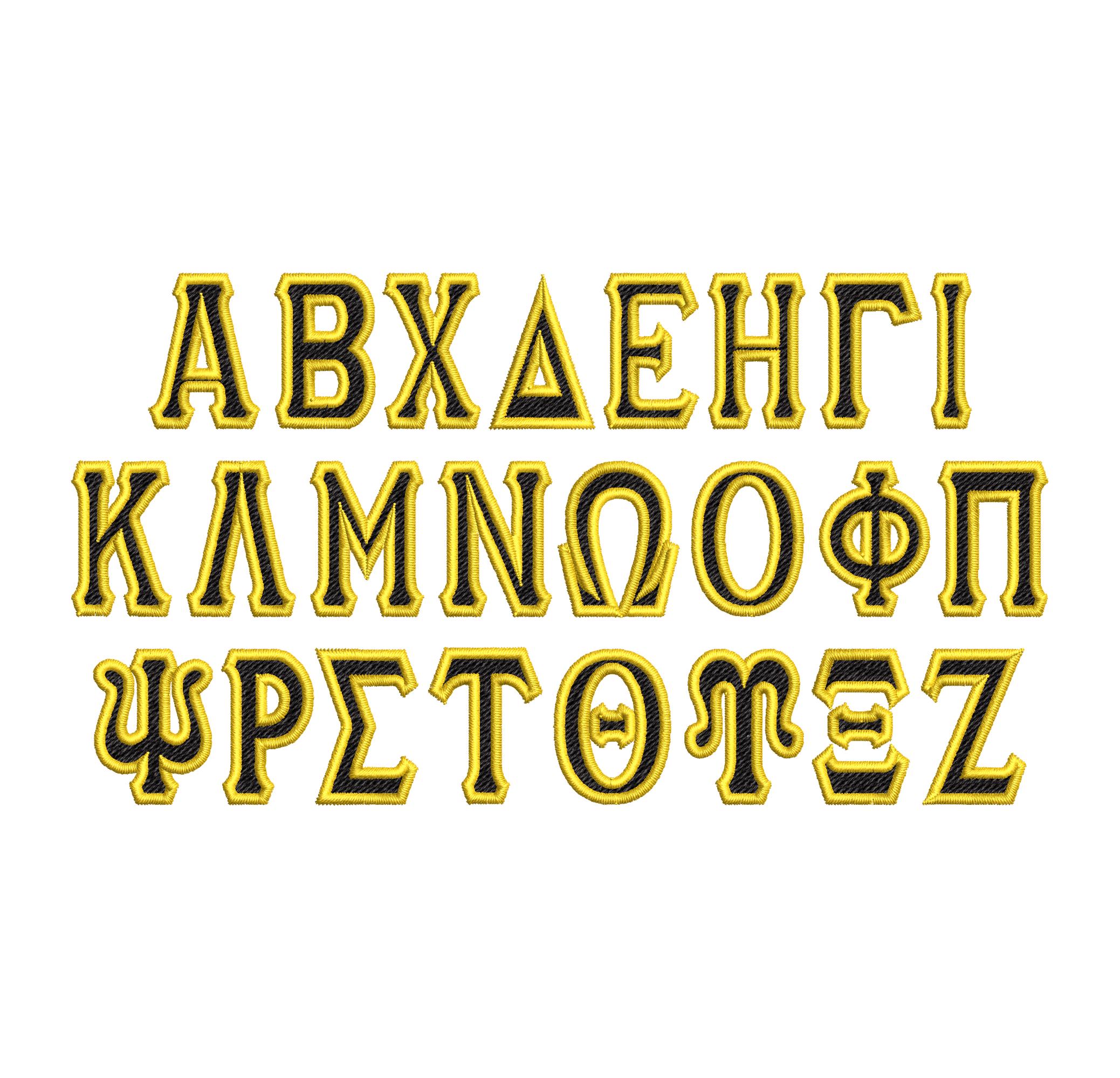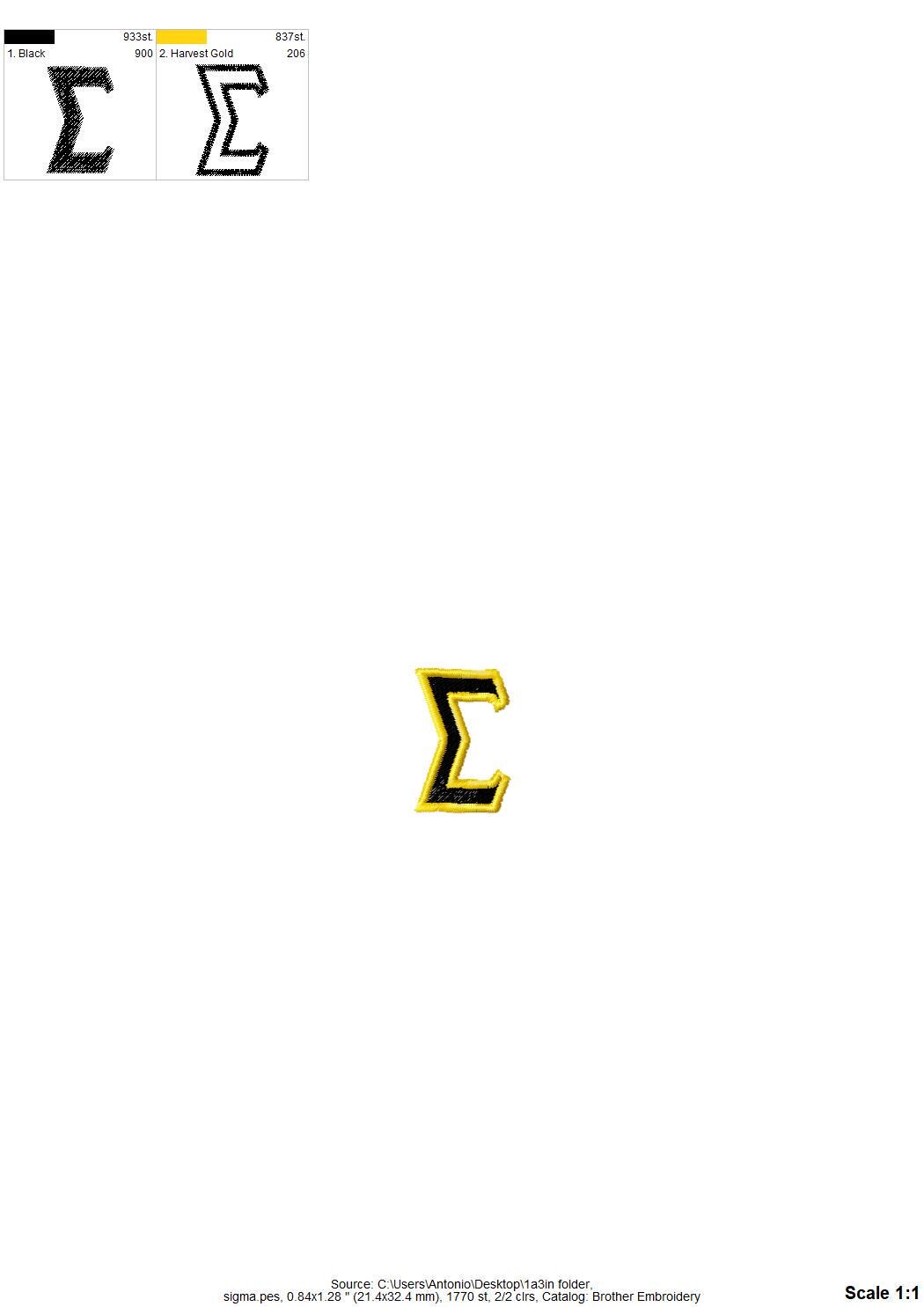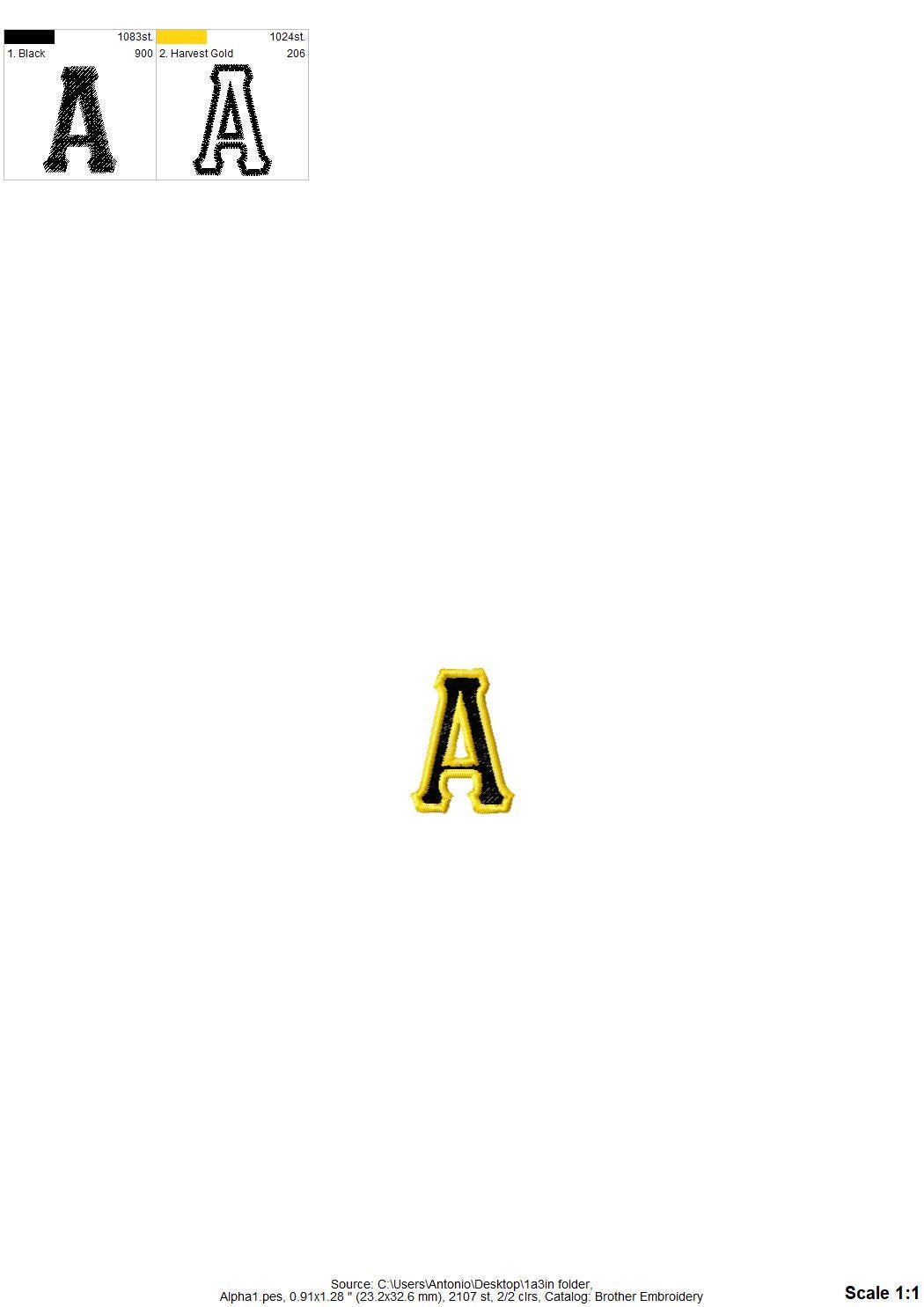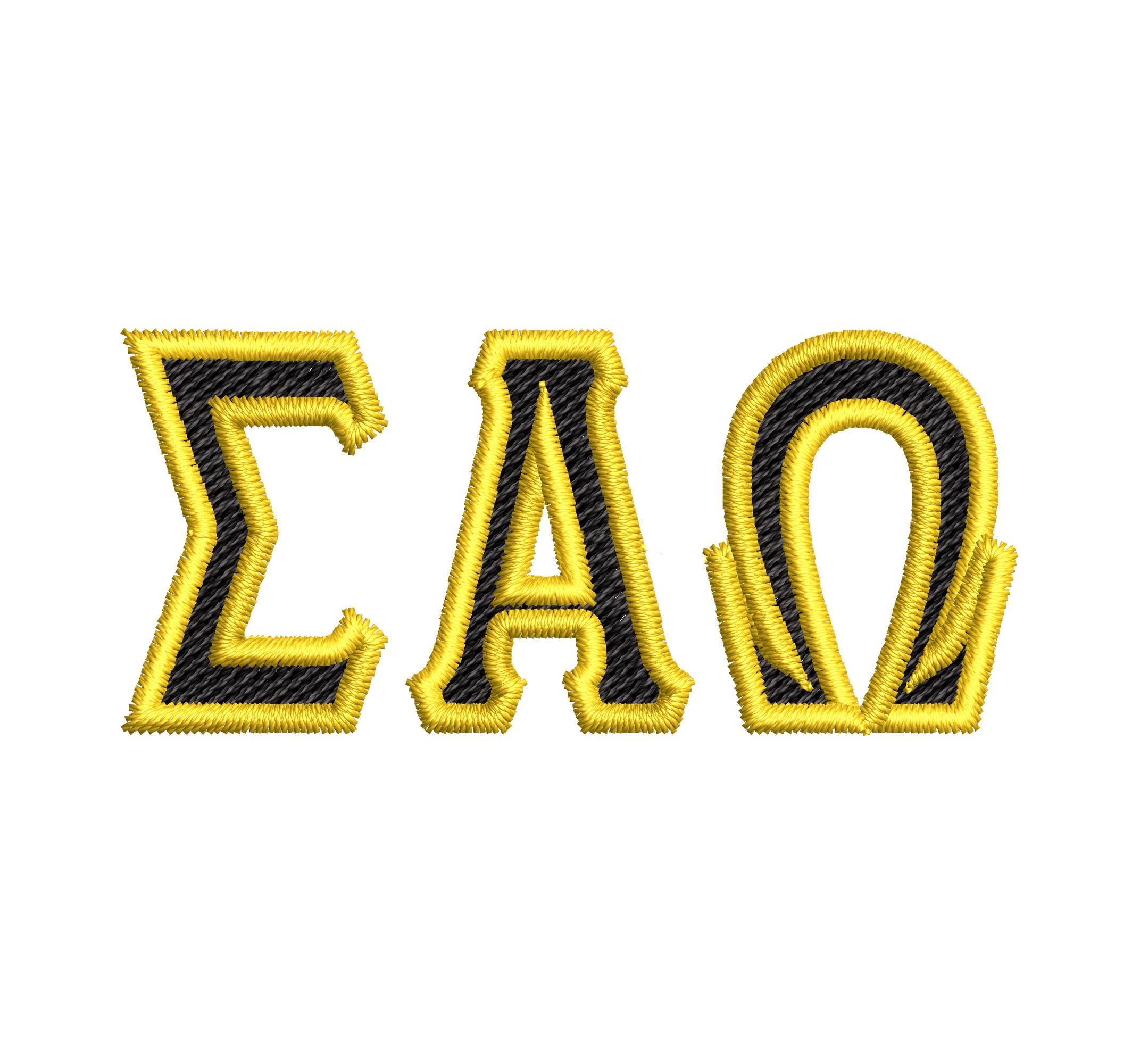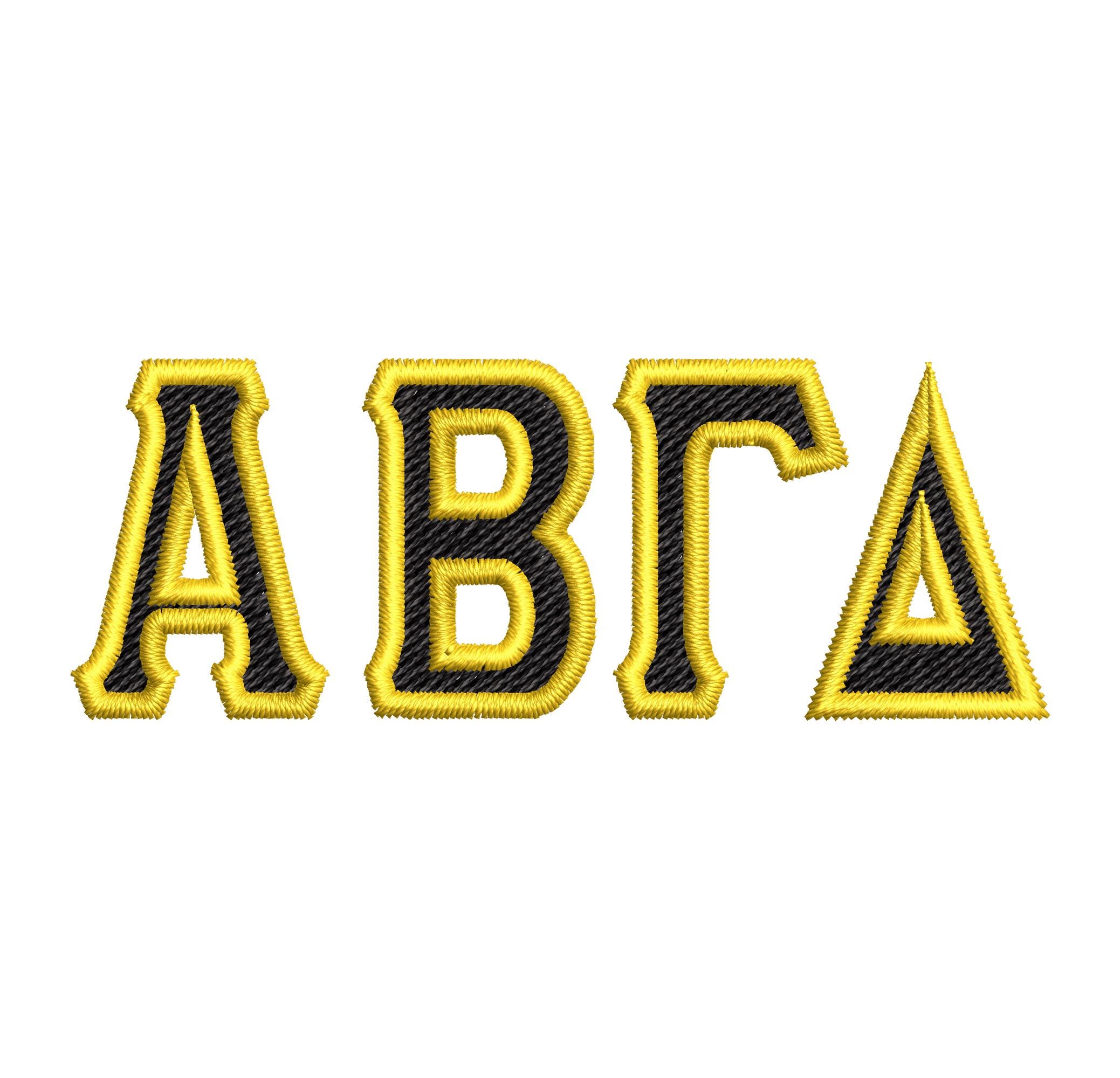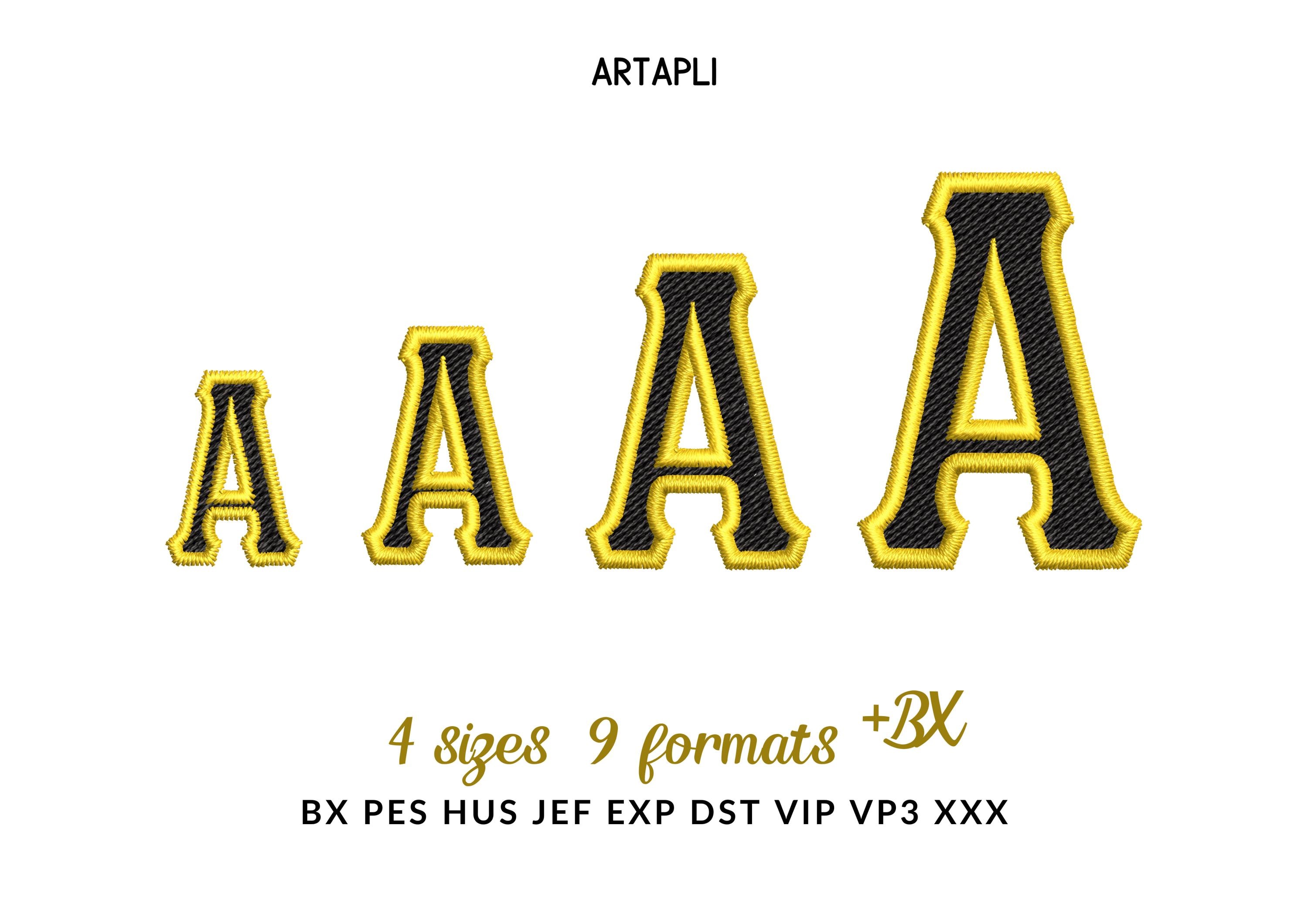
Tall Mini Greek FONT fill stitch and outline sizes 0.8 up to 1.6 inch Alphabet Monogram sororities fraternities machine embroidery designs
Font is fill stitched and has a contrast (second color) finish outline